Some fonts just look like trouble. The good kind.
Finding the best mafia fonts means tracking down typefaces that carry weight, authority, and a touch of vintage crime drama. These are the display fonts inspired by The Godfather, Prohibition era posters, and film noir aesthetics.
Whether you’re designing gangster themed movie posters, speakeasy event flyers, or streetwear branding, the right mob style lettering makes all the difference.
- Classic serif fonts from organized crime cinema
- Bold blackletter designs with tattoo and biker influences
- Modern urban display typefaces
The Best Mafia Fonts
| Font Name | Style Characteristics | Best Use Context | Visual Impact |
|---|---|---|---|
| Corleone | Classic serif with vintage Italian influence, elegant letterforms reminiscent of 1940s signage | Movie posters, book covers, period-appropriate branding | High sophistication, timeless appeal |
| The Godfather | Iconic serif design, heavy weight with theatrical presence and cinematic authority | Headlines, title cards, premium packaging | Maximum recognition, legendary status |
| Marleone Brando | Stylized serif with artistic flair, homage design with dramatic stroke variation | Artistic projects, tribute designs, specialty labels | Distinctive character, celebrity association |
| Santiago | Bold display font with Latin American influence, strong geometric structure | Restaurant branding, event signage, cultural themes | Bold presence, cultural authenticity |
| Westcoast | West Coast hip-hop inspired lettering, urban street aesthetic with graffiti elements | Music industry graphics, streetwear, urban marketing | Edgy modernism, youth appeal |
| Lockon Velline | Angular display typeface with mechanical precision, industrial undertones | Tech branding, modern noir designs, gaming | Sharp edge quality, contemporary feel |
| Cash and Mafia | Money-themed decorative font with dollar sign integration, luxury emphasis | Financial themes, luxury brands, casino graphics | Wealth symbolism, high-stakes appeal |
| Ganglia Basal | Biomechanical hybrid design, organic meets industrial with neural network reference | Sci-fi projects, experimental design, medical tech | Unconventional aesthetic, cerebral intensity |
| Oregon Street | American street sign typography, utilitarian roots with urban authenticity | Location-based branding, navigation design, Americana | Familiar reliability, geographic identity |
| Tratags | Tagging-style graffiti font, quick-stroke aesthetic with underground culture roots | Street art, youth marketing, counterculture branding | Raw authenticity, rebellious energy |
| Graffitopia | Full-color graffiti style, wildstyle elements with complex letter construction | Urban art projects, hip-hop culture, festival graphics | Maximum creativity, artistic complexity |
| Kingside | Regal display typeface, power symbolism with monarchical influence | Premium branding, leadership themes, exclusive products | Authority projection, hierarchical strength |
| Knucklehead | Rough-hewn boxing-inspired lettering, bruiser aesthetic with fighter personality | Sports branding, tough guy products, combat sports | Aggressive masculinity, fighting spirit |
| Ember | Minimalist sans-serif with subtle flame-inspired curves, modern restraint with heat undertones | Contemporary brands, digital interfaces, clean design needs | Subtle intensity, contemporary elegance |
Corleone
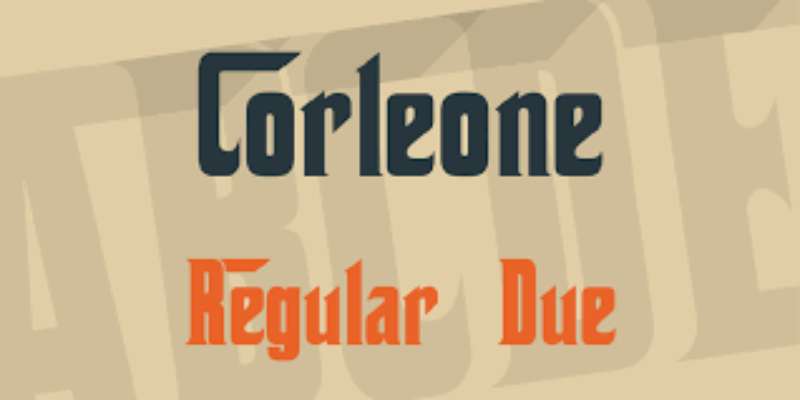
The Corleone font replicates the lettering from Francis Ford Coppola’s legendary 1972 film. Created by Michael Hagemann at FontMesa in 2001, this typeface remains one of the most downloaded gangster fonts online, with nearly a million downloads on DaFont alone.
Key Characteristics
Bold serif design with distinctive extended top lines on uppercase letters. The second variation, Corleone Due, features regular uppercase letters instead.
Both versions include:
- Full character sets (412-413 glyphs)
- Custom ligatures for “th,” “tt,” and “Th”
- OTF format files
- Multilingual support across 37 languages
Best Use Cases
Works well for crime drama movie posters, vintage event promotions, and any design needing that classic organized crime aesthetic. The improved spacing from the third film’s logo makes it readable even at smaller sizes.
Pairing Recommendations
Pair with clean sans-serif fonts for body text. The contrast between Corleone’s ornate serifs and simple supporting type creates strong visual hierarchy.
Notable Features
The @ symbol types out the iconic puppet-string hand imagery from the film. Three custom letter combinations make vintage text treatments easier to pull off.
Alternatives
The Godfather font by DJ-JohnnyRka, Ringbearer
The Godfather
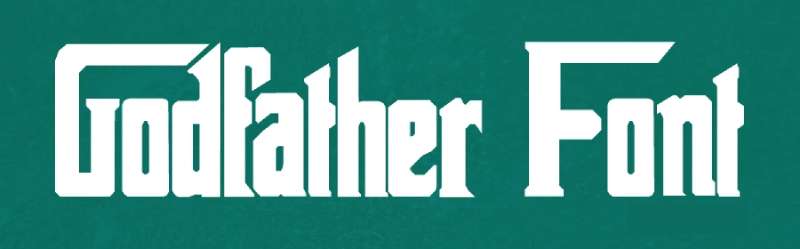
A tribute font designed specifically to match the 1972 American crime film that many consider one of the best movies ever made. This display font captures the timeless style that defined an entire genre.
Key Characteristics
Bold serif letters with clean, distinctive forms. The design carries authority and old-school mob sophistication through its strong, confident strokes.
Character set includes:
- Uppercase and lowercase letters
- Numbers and punctuation
- 72 characters total
- TTF format
Best Use Cases
Movie posters work perfectly with this font. It also fits Prohibition era themed events, vintage crime novels, and speakeasy-style branding. Headlines and titles benefit most from its dramatic presence.
Pairing Recommendations
Keep supporting typography understated. A neutral body font lets The Godfather headline command attention without competition.
Notable Features
Version 2.0 added complete numbers and punctuation. Created by BoltonBros, the font captures film noir aesthetics in every glyph.
Alternatives
Corleone, Marleone Brando
Marleone Brando
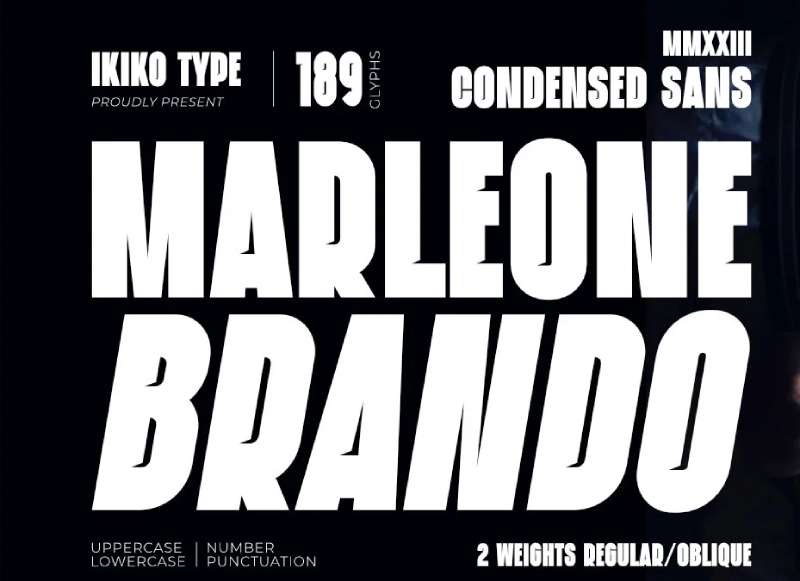
A modern condensed sans-serif that takes direct inspiration from mafia film typography. Designed by Andhika Pradana at ikiiko studio in Surabaya, Indonesia.
The name itself plays on the legendary actor who defined the Godfather character.
Key Characteristics
Bold, sturdy letterforms with shadow lines running inside each character. This internal detailing creates an elegant yet imposing impression.
Two weights available:
- Regular
- Oblique
Full character set with:
- Uppercase and lowercase
- Numbers and punctuation
- Multilingual support
- OTF and TTF formats
Best Use Cases
Logo design and branding projects. Movie posters, magazine layouts, sportswear, and packaging design all benefit from its commanding presence.
Also works as a stylish text overlay on background images.
Pairing Recommendations
The condensed form pairs well with wider serif fonts for subheadings. Use generous leading when setting multiple lines.
Notable Features
The shadow line detail sets this apart from basic bold fonts. It reads well at various sizes while maintaining that gangster movie aesthetic.
Premium font with commercial licensing through MyFonts and Creative Market.
Alternatives
Corleone, Westcoast, The Godfather
Santiago
A blackletter display font by Cristian López with a tattoo-influenced design. This traditional face sits closest to Linotype’s Old English but carries a more rebellious edge.
Used heavily in gangster and underground culture designs.
Key Characteristics
Traditional blackletter construction with pointed terminals and angular strokes. The Victorian-looking forms translate well to both vintage and contemporary crime aesthetics.
Features include:
- TTF, EOT, and SVG formats
- Full uppercase and lowercase
- Numbers and punctuation
- Gothic styling with modern touches
Best Use Cases
Perfect for tattoo designs and vintage poster design. Works on labels, badges, apparel, merchandise, and branding that needs that old-school gangster feel.
The bold script style handles quotes and headlines particularly well.
Pairing Recommendations
Avoid pairing with other decorative fonts. Clean, minimal typefaces for body text let Santiago’s ornate letterforms breathe and maintain balance.
Notable Features
Free for both personal and commercial use. The Victorian influence makes it versatile across multiple design eras, from Roaring Twenties speakeasies to modern streetwear.
Alternatives
Lockon Velline, Westcoast
Westcoast
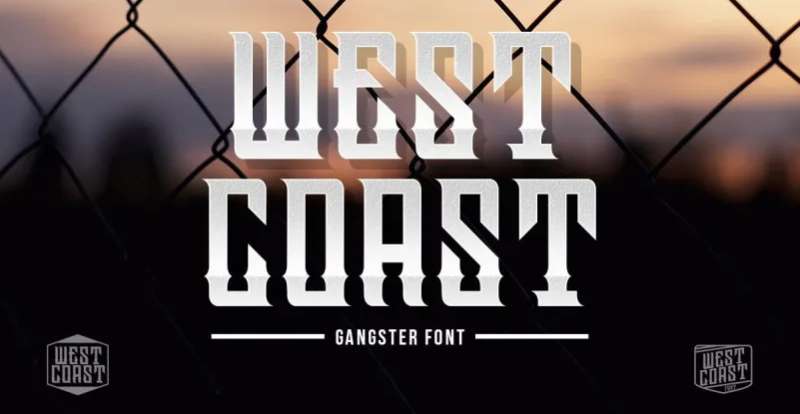
A blackletter gangster font by Muntab Art. The name suggests that West Coast hip-hop influence, but the design pulls from Chicano street lettering traditions.
This one screams urban edge.
Key Characteristics
Bold blackletter forms with modern street sensibility. The angular strokes and distinctive curves create an unmistakable tattoo shop aesthetic.
Package includes:
- Westcoast Regular (OTF and TTF)
- Westcoast Line (OTF and TTF)
- Uppercase and lowercase
- Numbers and punctuation
- Multilingual support
Best Use Cases
Tattoo design first and foremost. Logo work for tattoo studios, streetwear brands, and urban apparel projects. Posters and branding with that Chicano influence.
The line version adds extra design flexibility.
Pairing Recommendations
Works with bold sans-serifs that share its street attitude. Keep font spacing loose to prevent visual clutter in dense layouts.
Notable Features
Two style variations in one package. The Line version provides an outline option for layered designs and more complex compositions.
Premium licensing available through Font Bundles and Creative Market.
Alternatives
Santiago, Lockon Velline, Tratags
Lockon Velline
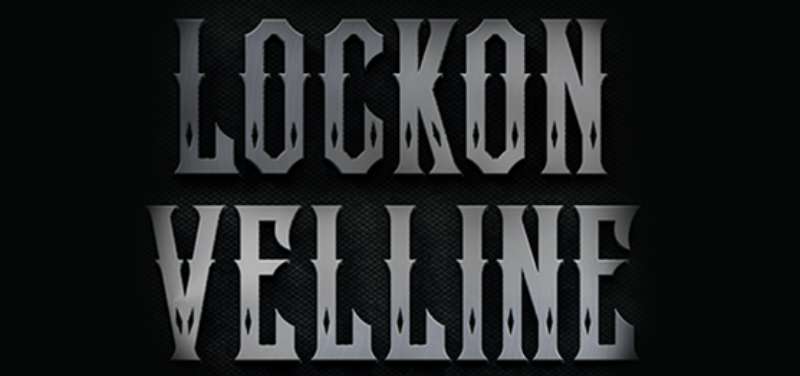
An unusual bold script designed by Cucu Supriyadi at Seventh Imperium. Takes its inspiration from biker and tattoo culture, with aggressive edge and sharp tips throughout.
This one doesn’t mess around.
Key Characteristics
Progressive edges and pointed terminals create dynamic, almost aggressive letterforms. The vintage feel combines with bold display sizing for maximum impact.
Features:
- All-caps primary design
- OpenType features with stylistic alternates
- Personal use version available free
- Commercial license through MyFonts
Best Use Cases
Traditional posters, movie titles, tattoo designs, and covers. The vintage quality works for any design needing that old-school, no-nonsense attitude.
Primarily a headline font due to all-caps construction.
Pairing Recommendations
Let it stand alone for maximum effect. If body text is needed, choose something completely neutral. The font’s personality dominates any layout.
Consider tracking adjustments for very large applications.
Notable Features
The OpenType alternates provide customization options. You can activate different stylistic sets to match specific design needs.
Personal use version available on FontSpace and DaFont.
Alternatives
Westcoast, Santiago, Ember
Cash and Mafia
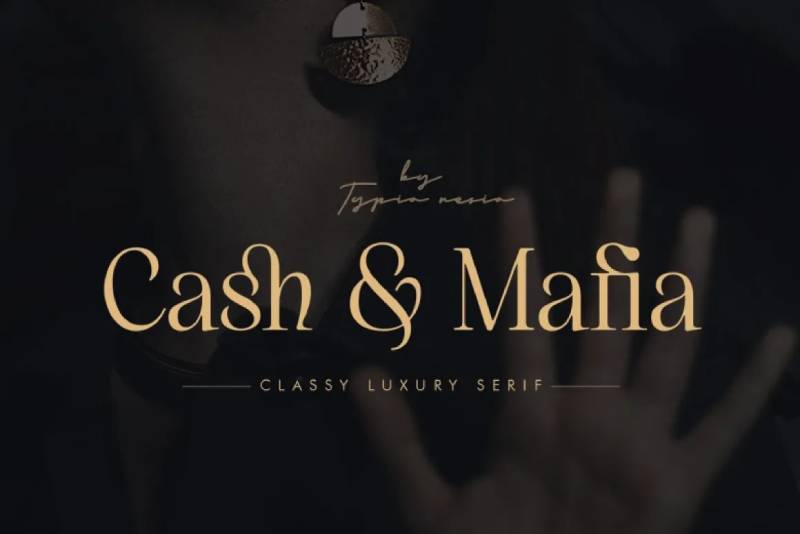
A modern thin serif by Typia Nesia that balances elegance with authority. The name says organized crime, but the design speaks luxury and sophistication.
Surprisingly versatile for a font with “Mafia” in its name.
Key Characteristics
Thin, elegant strokes with refined serif details. Classic proportions create a timeless appearance that works across various design contexts.
Includes:
- Full character set
- 207+ glyphs
- Support for 213 languages
- OTF and TTF formats
Best Use Cases
Luxury logos and classy branding. Editorial design for magazines, cosmetic brands, fashion promotions. Art gallery branding, museum materials, boutique stationery.
Book cover design and special event invitations also work well.
Pairing Recommendations
The thin weight needs companion fonts with similar elegance. Pair with other refined serifs or geometric sans-serifs. Avoid heavy, chunky typefaces that would clash with its delicate forms.
Notable Features
Extensive language support makes this useful for international projects. The sophisticated aesthetic stands apart from rougher gangster fonts.
Demo version free for personal use.
Alternatives
Any classic thin serif, though few carry the same thematic name
Ganglia Basal
An urban display font by Colllab Studio that channels rebellion and street energy. Less vintage mob and more contemporary underground culture.
The name references brain anatomy. The design references city walls.
Key Characteristics
Bold, expressive letterforms built for maximum visual impact. Captures raw graffiti energy while maintaining enough structure for practical design use.
Complete package:
- OTF, TTF, and WOFF files
- 275 glyphs
- Swashes and ligatures
- Stylistic alternates
- Support for 78 languages
- PUA encoded
Best Use Cases
Festival flyers and event promotions. Music projects, lyric videos, merchandise design. Anything needing urban vitality and rebellious attitude.
Works for both print design and digital applications.
Pairing Recommendations
Pair with neutral sans-serifs for readability. The swash features add flair but use them sparingly. Too many decorative elements will compete with each other.
Notable Features
The swash system uses simple notation: type c_1, c_2, c_3 to access different variations. Extensive alternates let you customize each word differently.
Available on Creative Market and GraphicRiver.
Alternatives
Graffitopia, Tratags, Oregon Street
Oregon Street
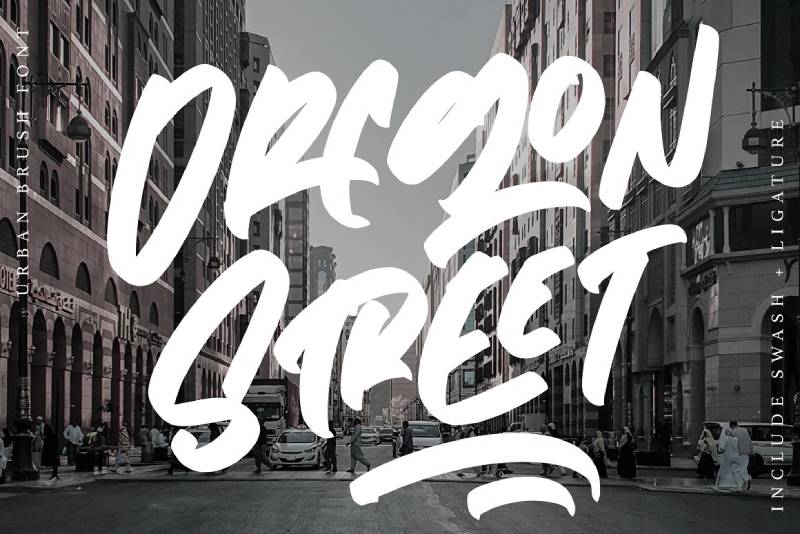
A versatile urban display font with distinctive street characteristics. The design leans into that gritty city aesthetic while staying practical enough for real project use.
Pairs attitude with functionality.
Key Characteristics
Bold urban letterforms with stylistic variations built in. The design offers multiple ways to customize each word through OpenType features.
Includes:
- Stylistic sets
- Alternate characters
- Ligatures
- Uppercase and lowercase
- Numbers and punctuation
- Multilingual support
- OTF and TTF formats
Best Use Cases
Logotype design and branding work top the list. Also strong for book covers, t-shirt designs, and product packaging.
The stylistic alternates make each application look unique, even when using the same font.
Pairing Recommendations
Works best with clean body text fonts. The urban character needs room to breathe without competing elements. Consider neutral sans-serif options for supporting text.
Notable Features
The alternate characters and ligatures give serious customization options. You can make the same word look different across multiple uses, which matters for branding consistency with variation.
Free personal use version available.
Alternatives
Ganglia Basal, Graffitopia, Tratags
Tratags
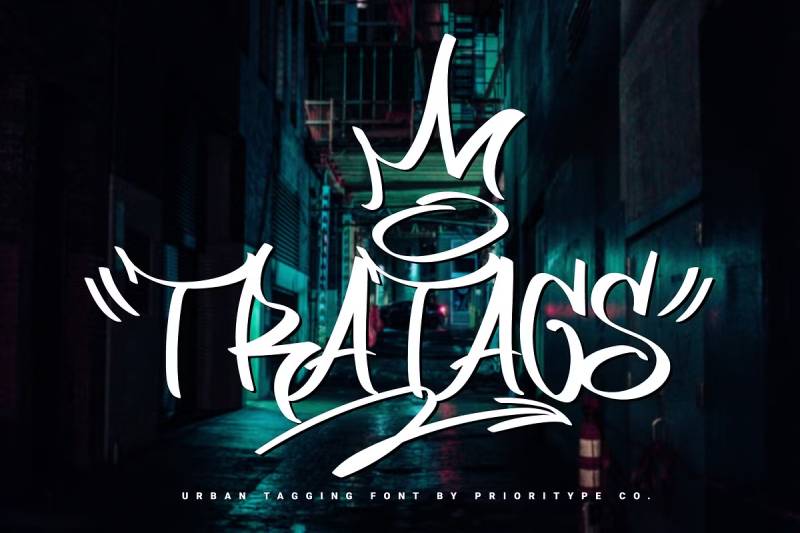
An urban tagging graffiti font by Prioritype. This one captures that raw street tagging energy while remaining readable enough for commercial applications.
Cool and youthful without being chaotic.
Key Characteristics
Dynamic graffiti-style letterforms with authentic street art influence. The design balances expressive spray-paint aesthetics with practical usability.
Package includes:
- Uppercase letters
- Lowercase letters (with ending swashes)
- Numbers
- Punctuation
- Multilingual support
- PUA encoded characters
- OpenType features
- OTF and TTF formats
Best Use Cases
Clothing designs come first, obviously. Posters, merchandise, and album covers benefit from its youthful edge.
The readable letterforms mean it works where pure tagging fonts fail.
Pairing Recommendations
Keep companion fonts simple. The graffiti energy dominates any layout, so neutral supporting typography elements work best.
Avoid other decorative faces. One statement font per design.
Notable Features
OpenType features require compatible software like Adobe Illustrator, CorelDRAW, or Inkscape to access the full alternate character set. The glyph panel reveals variations you won’t see in basic applications.
Premium font with commercial licensing through Font Bundles.
Alternatives
Graffitopia, Ganglia Basal, Oregon Street
Graffitopia
An urban graffiti font that captures authentic street art energy. Each letter carries the edgy strokes and rebellious flair of real tagging.
Brings the concrete jungle into digital design.
Key Characteristics
Expressive letterforms built around genuine spray-paint aesthetics. The design translates wall art’s raw dynamism into usable type without losing authenticity.
The distinctive strokes create artful statements from simple words.
Features include:
- Full character set
- Urban display styling
- Rough, expressive edges
- Street art influence throughout
Best Use Cases
Edgy logo design and eye-catching poster work. Contemporary designs needing underground attitude. Anything requiring rebellious tone and boundary-pushing creativity.
Hip-hop and street culture projects fit naturally.
Pairing Recommendations
Solo use works best for headlines. If body text is needed, choose something completely invisible. The graffiti aesthetic should dominate the visual space.
Pay attention to proximity when combining with other elements.
Notable Features
The smoky contours and roughly etched details set this apart from generic graffiti fonts. It feels like actual street art rather than a corporate interpretation.
Available through Envato Elements, Pixel Buddha, and other marketplaces.
Alternatives
Tratags, Ganglia Basal, Oregon Street
Kingside
A tattoo-style script font by Muntab_Art with Chicano lettering influences. The design draws from California tattoo culture and West Coast street aesthetics.
Every lowercase letter includes ending swashes.
Key Characteristics
Flowing script letterforms with decorative swash endings. The calligraphic influence meets gangster tattoo styling in a readable package.
Full package includes:
- Uppercase and lowercase
- Numbers and punctuation
- Multilingual support
- Swash characters (separate font file)
- Ligatures
- OpenType features
- OTF and TTF formats
Best Use Cases
Tattoo design and Chicano-style artwork lead the list. Also works for elegant gangster branding, gothic invitations, and script-heavy displays.
The swash version adds extra flourish for decorative applications.
Pairing Recommendations
Pair with bold display fonts for headlines when Kingside handles secondary text. Or let it stand alone as the primary statement with minimal supporting type.
Watch kerning carefully with the swash characters.
Notable Features
Two font files included: standard and swash versions. The swash file adds ending flourishes that extend the decorative potential significantly.
Available through Font Bundles and Creative Market.
Alternatives
Santiago, Westcoast, Lockon Velline
Knucklehead
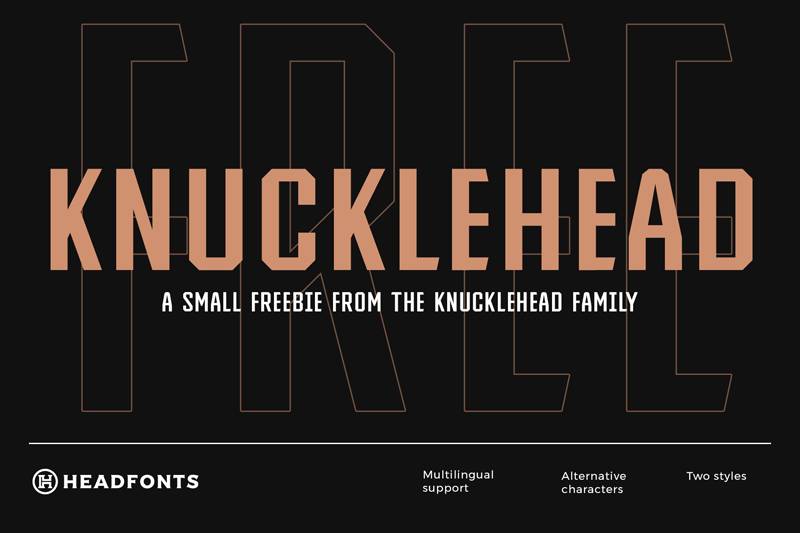
A three-family display font by Mcraft Studio inspired by American Western culture and tattoo traditions. The design bridges vintage Americana with modern attitude.
Traditional yet edgy.
Key Characteristics
Bold, sans-serif structure with Western decorative influences. The uniform weight creates clean readability while the styling adds personality.
Three family variations offer:
- Different decoration levels
- Mono weight throughout
- Strong uppercase focus
- Clean modern feel
- Vintage Western touch
Best Use Cases
Logos and branding with vintage Western themes. Greeting cards, event invitations, and projects needing classic American motifs.
Magazine designs, shirt printing, and product packaging work well.
Pairing Recommendations
Can pair with other Western-influenced fonts if styles don’t clash. More decorative variations need simpler companion faces to maintain unity.
The three family options provide built-in pairing possibilities.
Notable Features
The font name matches its personality. Slightly aggressive but legible. The rebellious name fits the aesthetic perfectly.
Free personal use version through DaFont and other sources. Commercial license required for professional work.
Alternatives
Western-style display fonts, vintage Americana typefaces
Ember
A bold stencil font by Tugcu Design Co. in two distinct styles. Built for impact headlines with urban or post-apocalyptic vibes.
Big, loud, and impossible to ignore.
Key Characteristics
Chunky stencil letterforms designed for maximum visual weight. The two style variations offer flexibility while maintaining the core aggressive aesthetic.
Character set includes:
- English uppercase letters only
- Numbers
- Punctuation
- Two style variations
- OTF format
Best Use Cases
Urban-themed headlines and post-apocalyptic designs. Game graphics, industrial branding, and anything needing that survivalist edge.
Works for motion graphics and video titles where bold impact matters.
Pairing Recommendations
The uppercase-only limitation means you’ll need supporting fonts for body text. Choose something that doesn’t compete with Ember’s aggressive presence.
Military or industrial sans-serifs complement the stencil aesthetic.
Notable Features
The stencil breaks in each letter create authentic military/industrial feel. Two included styles let you vary the look across a single project.
Personal use version available free. Commercial license through Creative Market and GraphicRiver.
Alternatives
Other stencil display fonts, military-style typefaces
FAQ on The Best Mafia Fonts
What font is used in The Godfather movie?
The 1972 film uses custom lettering. The closest match is Corleone by FontMesa, which replicates the title design from Francis Ford Coppola’s classic. It’s free for commercial use and available on DaFont.
Are mafia fonts free to download?
Many gangster style fonts offer free personal use versions. Sites like DaFont, Font Squirrel, and FontSpace host free downloads. Commercial projects usually require purchasing a license from MyFonts or Creative Market.
What makes a font look like a mafia font?
Bold serifs, vintage typography elements, and film noir aesthetics define the style. Think Prohibition era lettering, Art Deco influences, and dramatic display characteristics. Heavy strokes and ornate details create that organized crime mood.
Can I use mafia fonts for commercial projects?
Depends on the license. Always check before using any font commercially. Free fonts often restrict commercial use. Premium options from Envato Elements or MyFonts typically include commercial licensing in the purchase price.
What’s the best mafia font for logos?
Corleone and Marleone Brando work well for branding. Both carry authority without sacrificing readability. For streetwear logos, Westcoast or Lockon Velline deliver that bold tattoo-influenced look.
Which fonts pair well with mafia typefaces?
Clean sans-serif fonts create good contrast with ornate gangster lettering. Use decorative mob fonts for headlines only. Body text needs something neutral and readable to maintain visual hierarchy.
Are there blackletter mafia fonts available?
Yes. Santiago, Westcoast, and similar gothic typefaces blend blackletter tradition with gangster aesthetics. These work for tattoo designs, vintage posters, and streetwear branding with that old English crime feel.
What file formats do mafia fonts come in?
Most download as OTF or TTF files. Web projects may need WOFF format. Premium fonts often include multiple formats. Check the download package to confirm compatibility with your design software.
Can I modify mafia fonts for my designs?
License terms vary. Some allow modifications while others prohibit changes. Read the EULA before altering any typeface. Custom lettering based on existing fonts may require extended licensing.
Where can I find premium mafia fonts?
MyFonts, Creative Market, Envato Elements, and Font Bundles offer curated selections. Premium fonts include better character sets, multiple weights, and proper commercial licensing for professional projects.
Conclusion
Choosing the best mafia fonts comes down to matching the right vintage typography to your project’s tone. From Corleone’s classic Godfather aesthetic to Westcoast’s Chicano street influence, each typeface serves different design needs.
Check licensing before downloading. Free fonts work for personal projects, but commercial use typically requires paid licenses from platforms like Creative Market or MyFonts.
The font families covered here include complete character sets, OpenType features, and multiple weight variations. That means flexibility for headline fonts, logo design principles, and apparel graphics.
Bold crime drama lettering never goes out of style. Whether you’re channeling Goodfellas, Scarface, or Roaring Twenties speakeasies, these typefaces deliver the authority your designs need.
Pick one. Make something memorable.